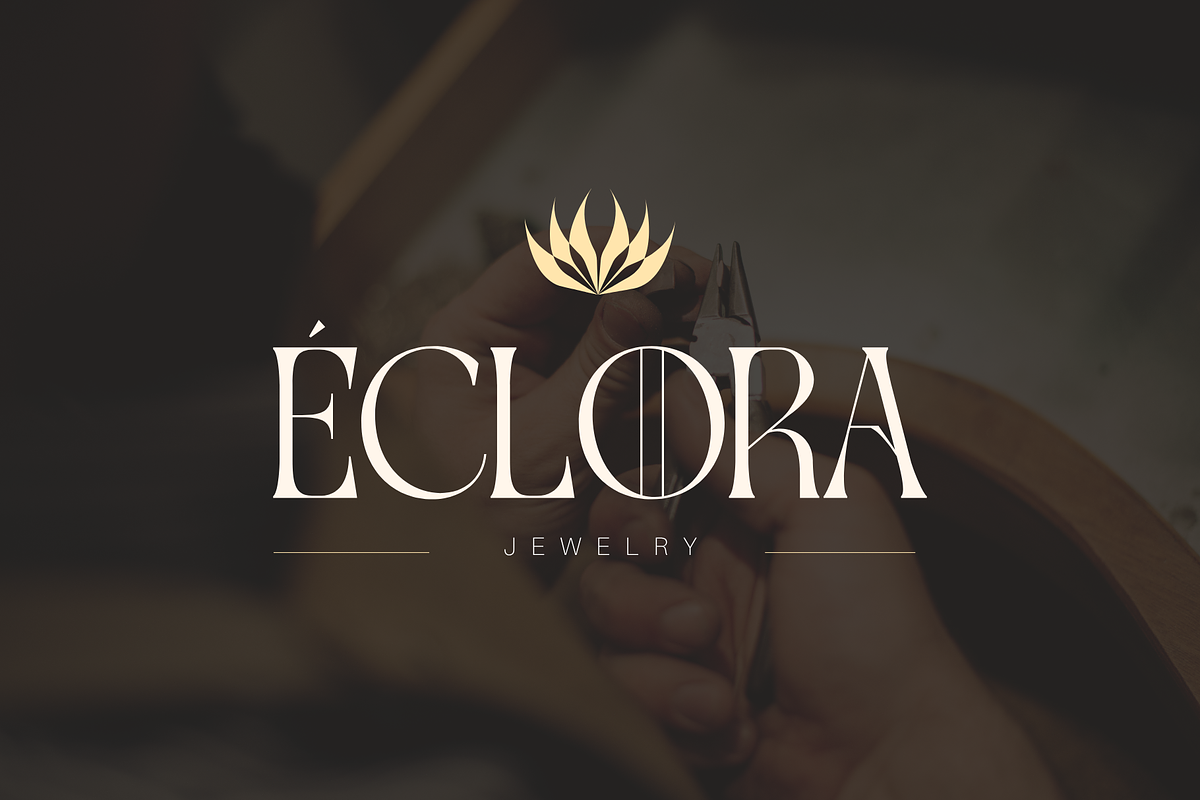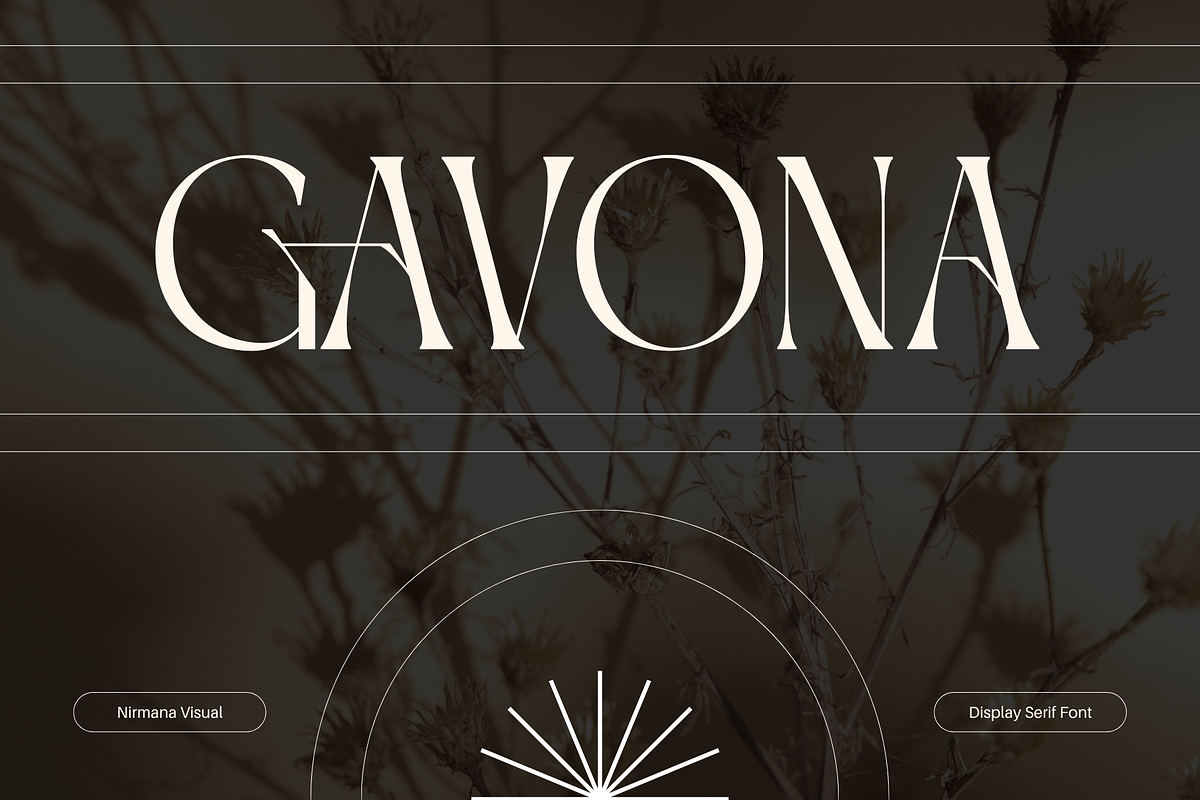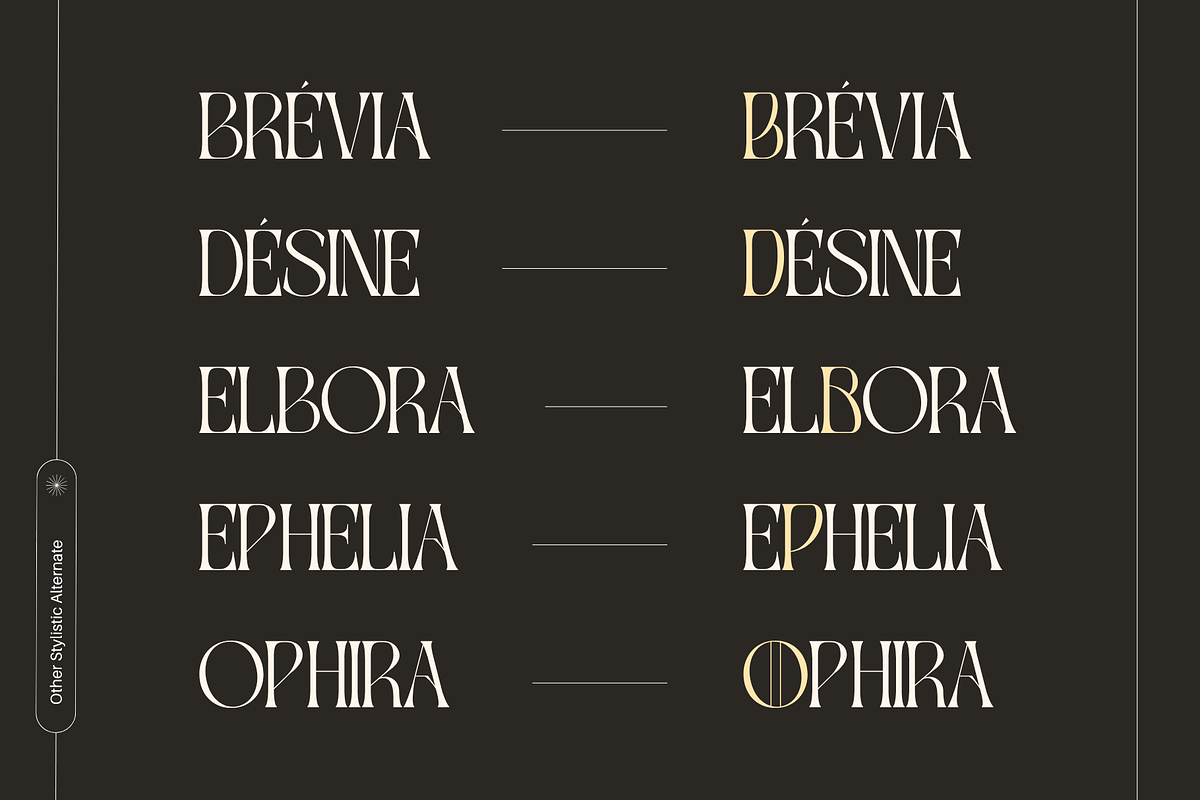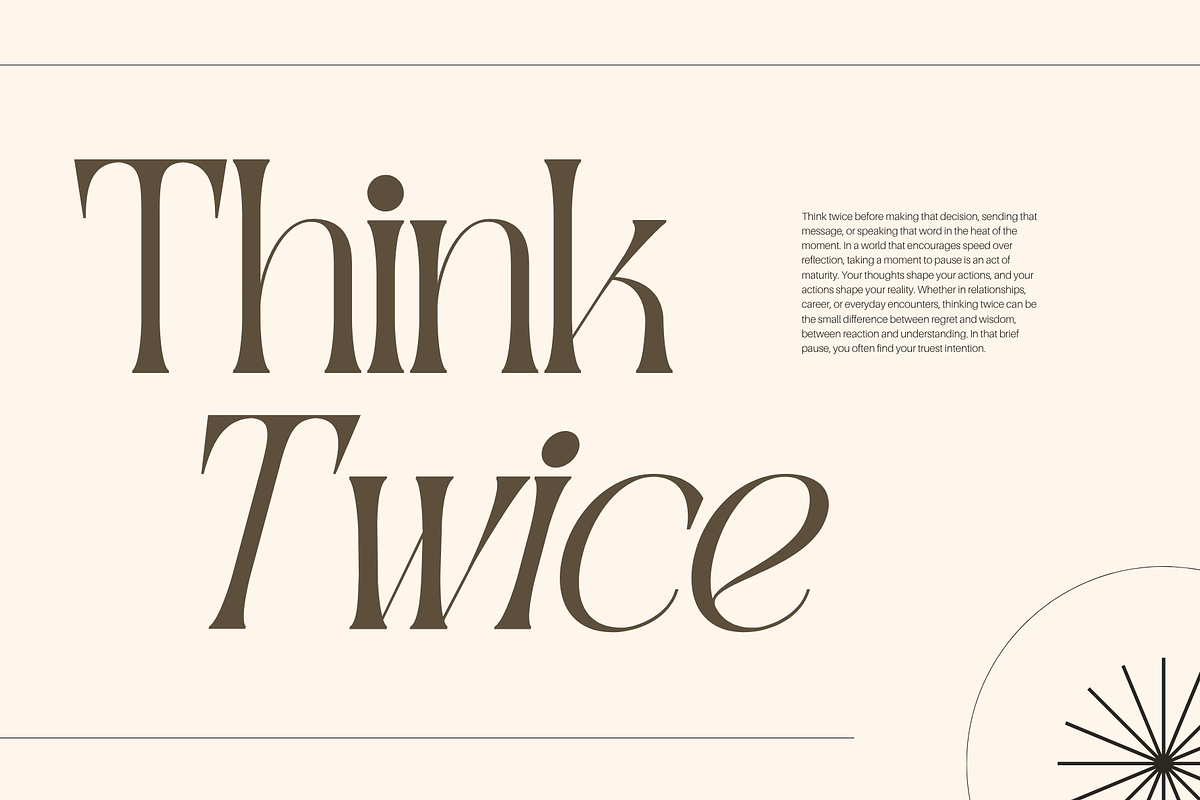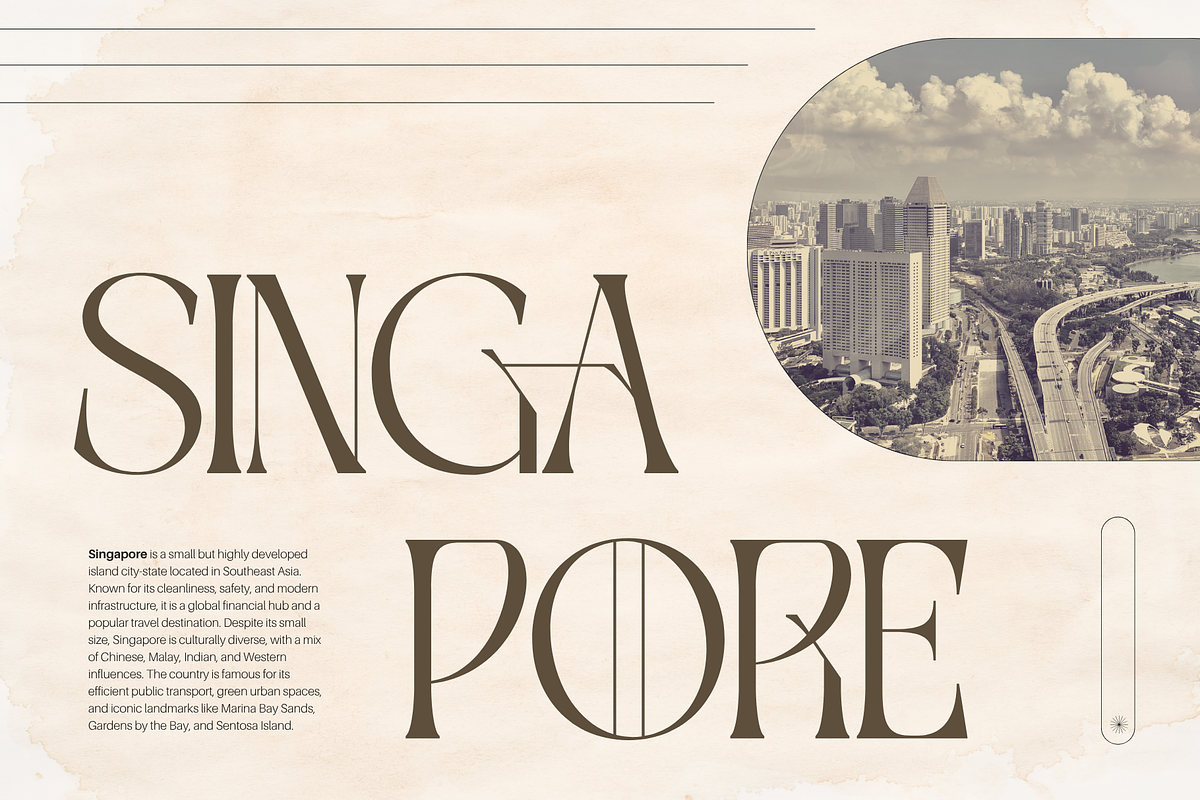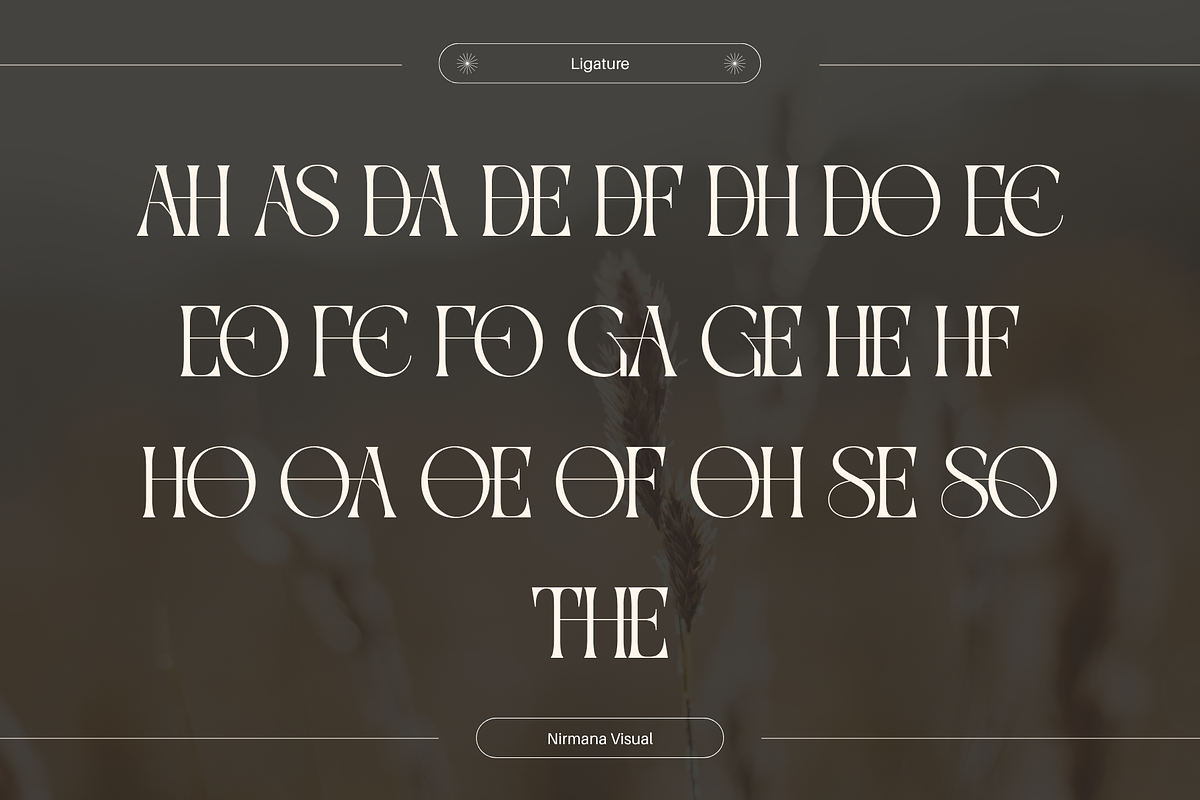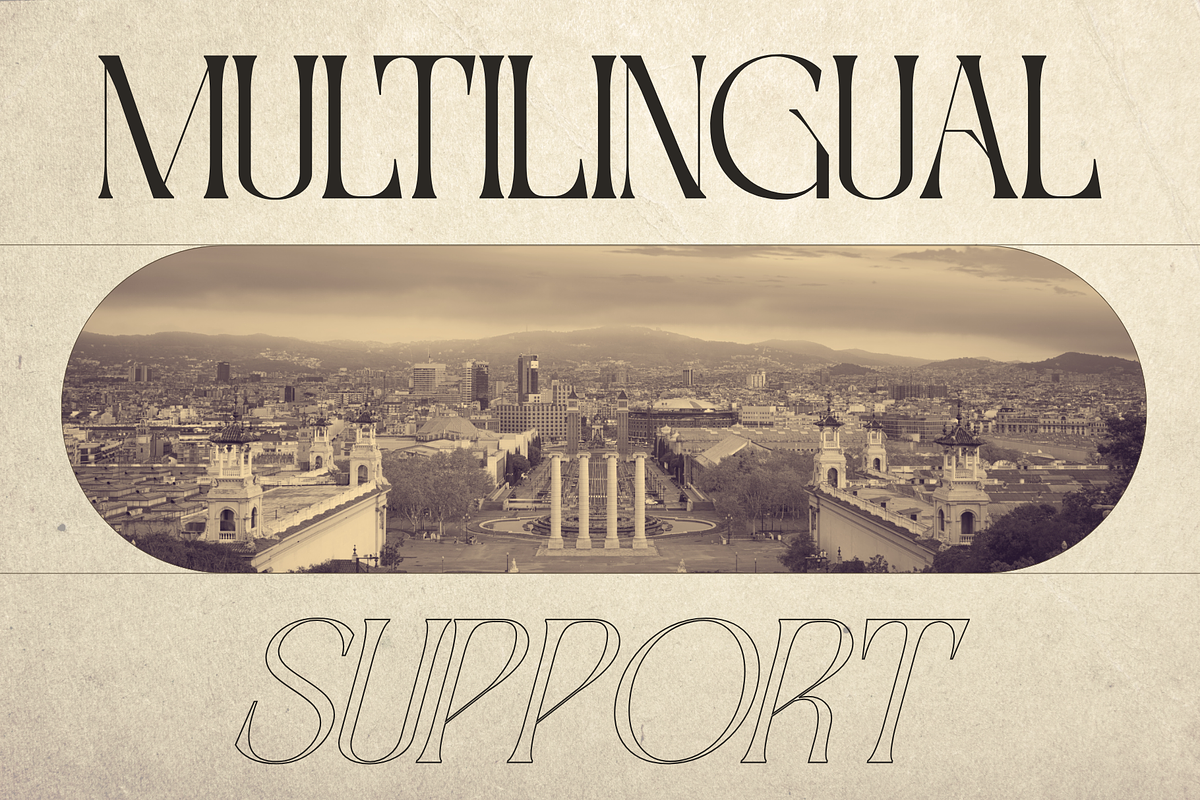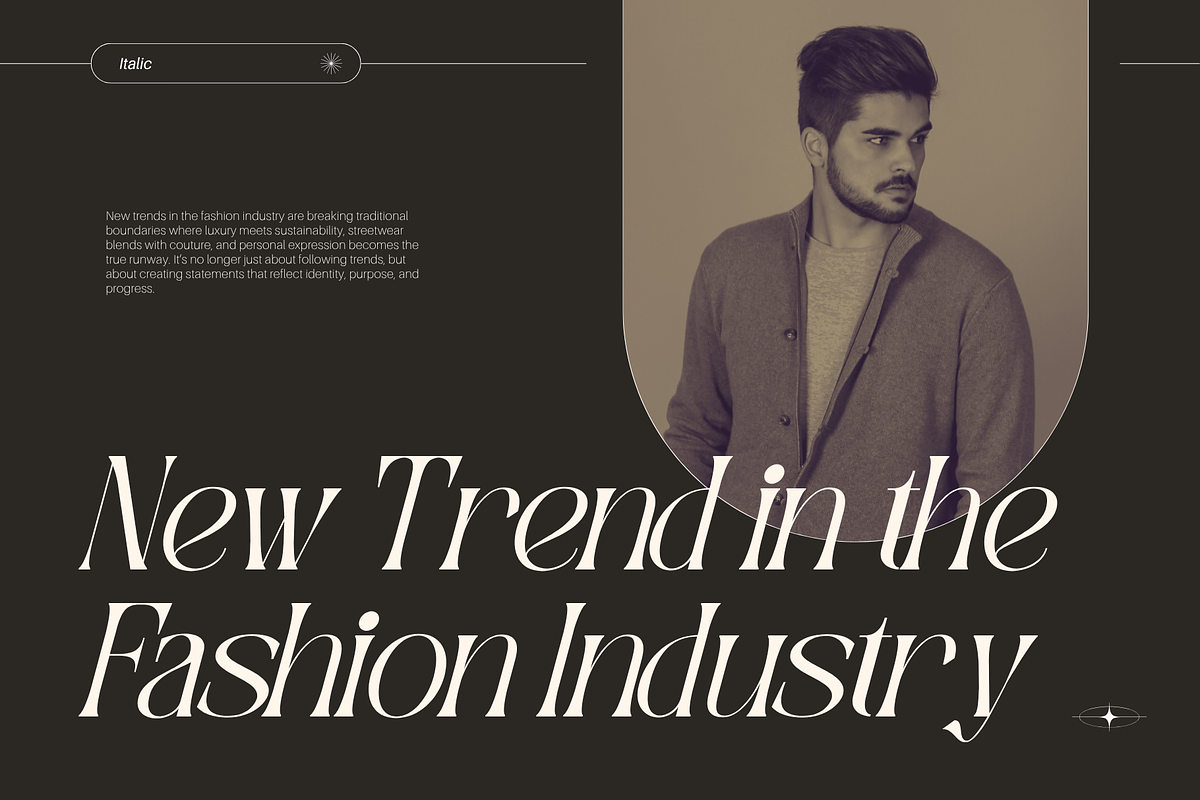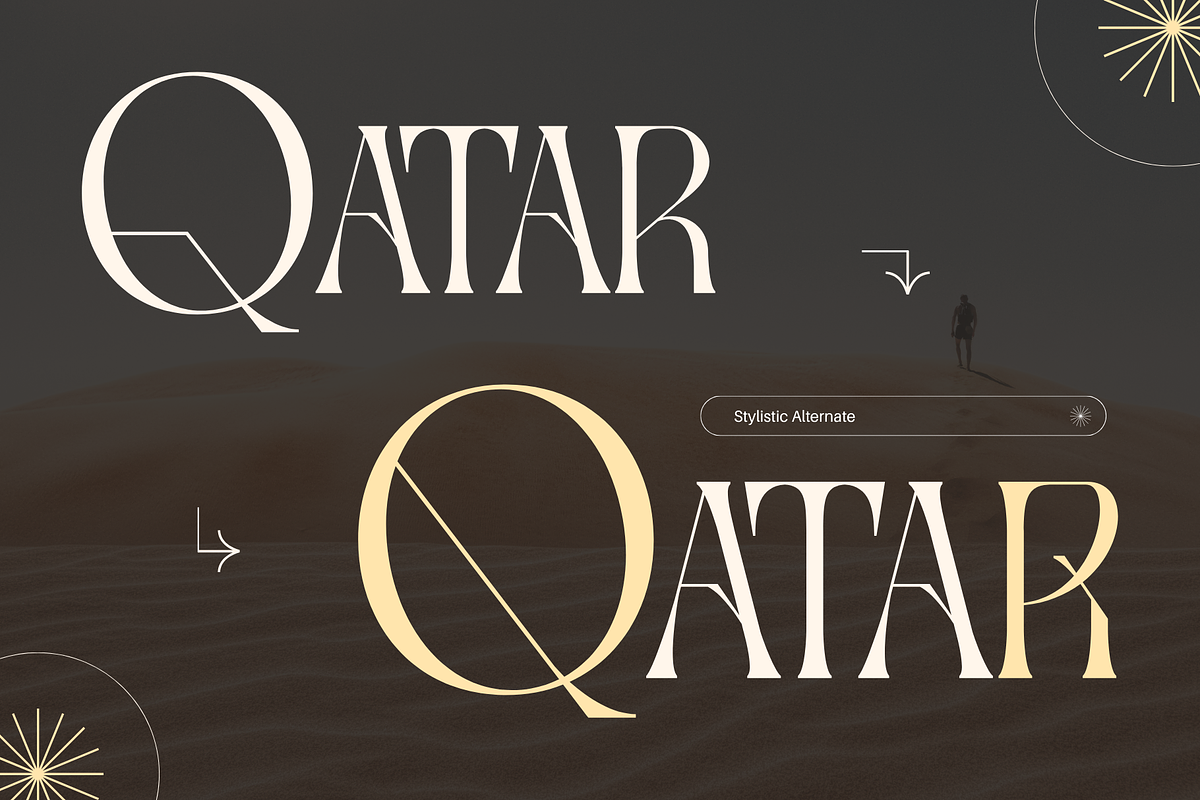
Gavona Elegant - Modern Logo Font
Gavona offers beautiful typographic harmony for a diversity of design projects, including logos & branding, social media posts, advertisements & product designs.
What you get : Two Font Styles Regular & Italic